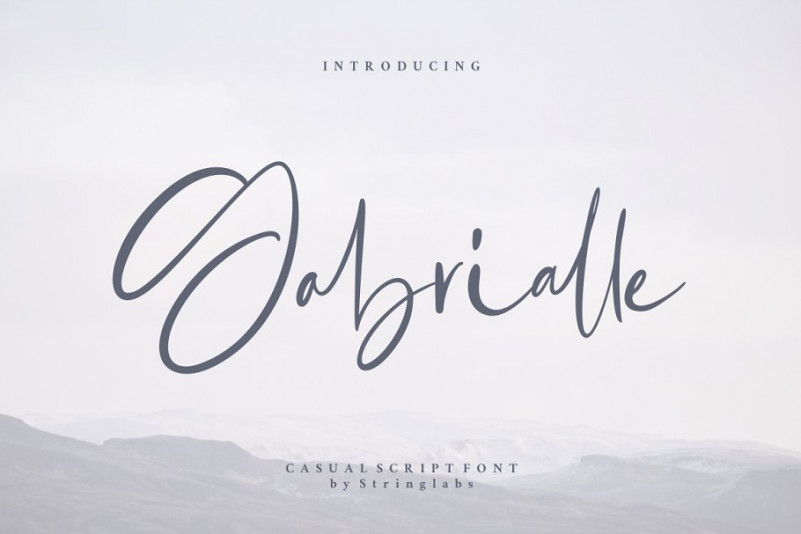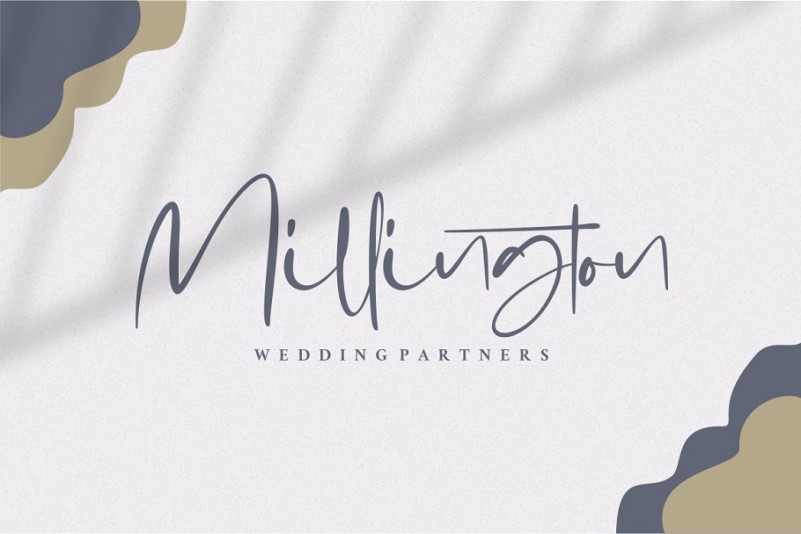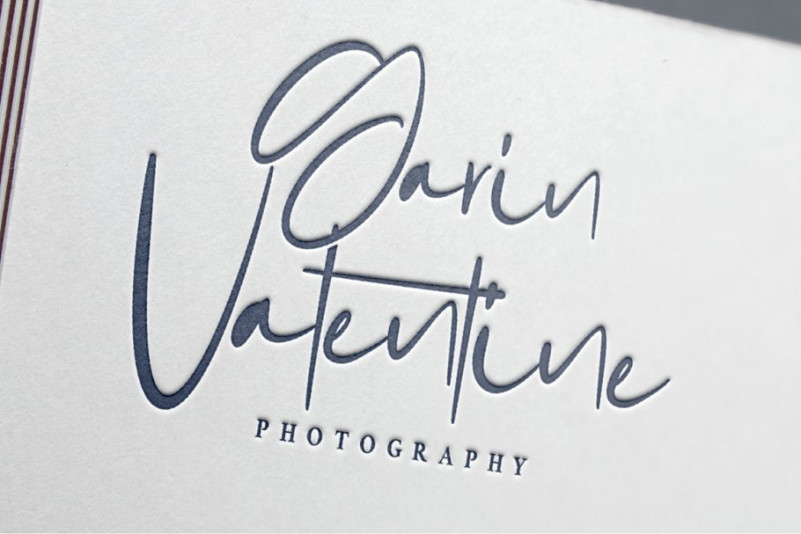
Gabrialle Font
Introducing Gabrialle – Casual Script Font
This Font can be used for any variety of purposes, such as: Photography, Wedding Invitation, Packaging Product, Logo Type, Brand, and also can be used for personal purpose.